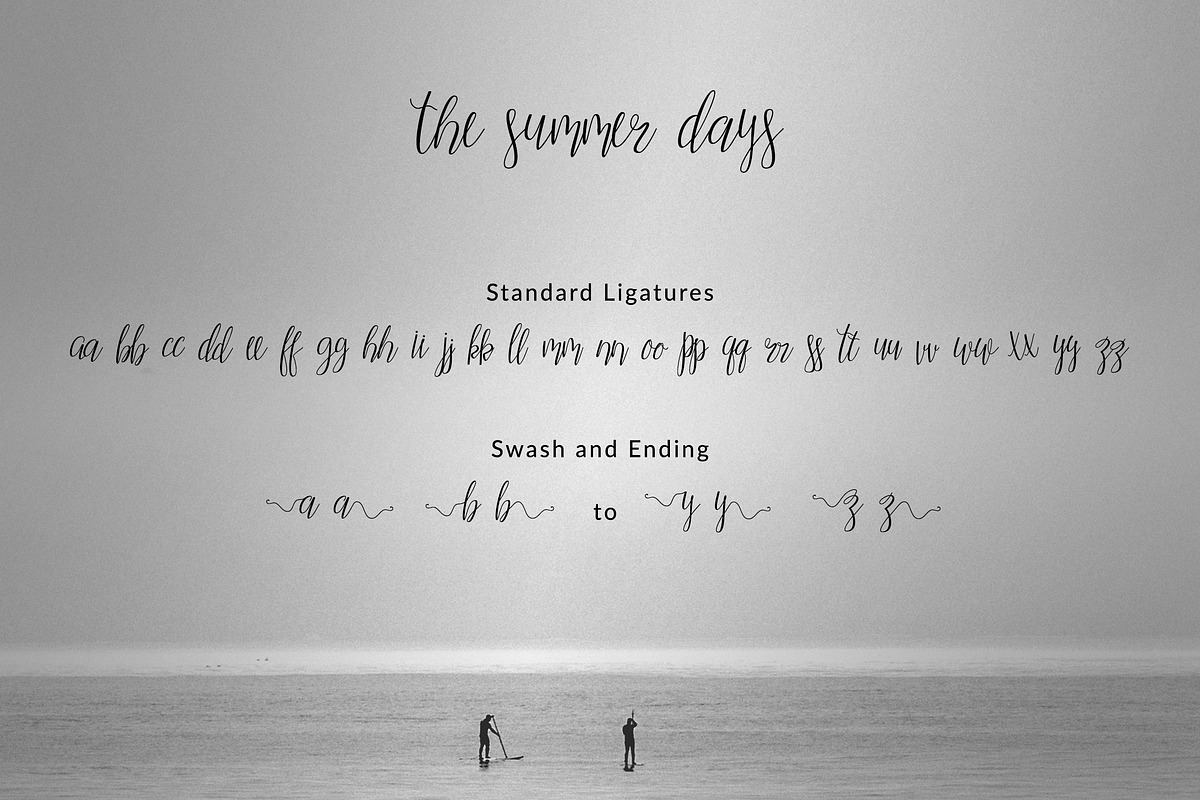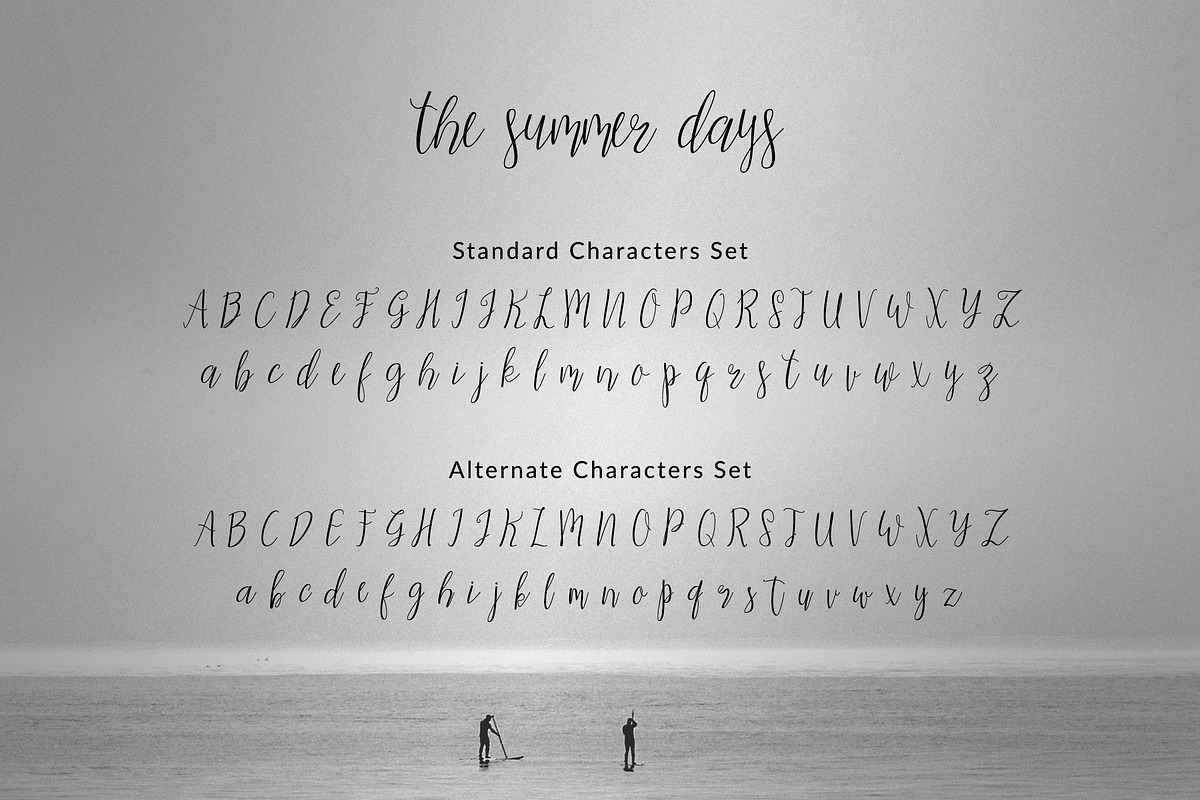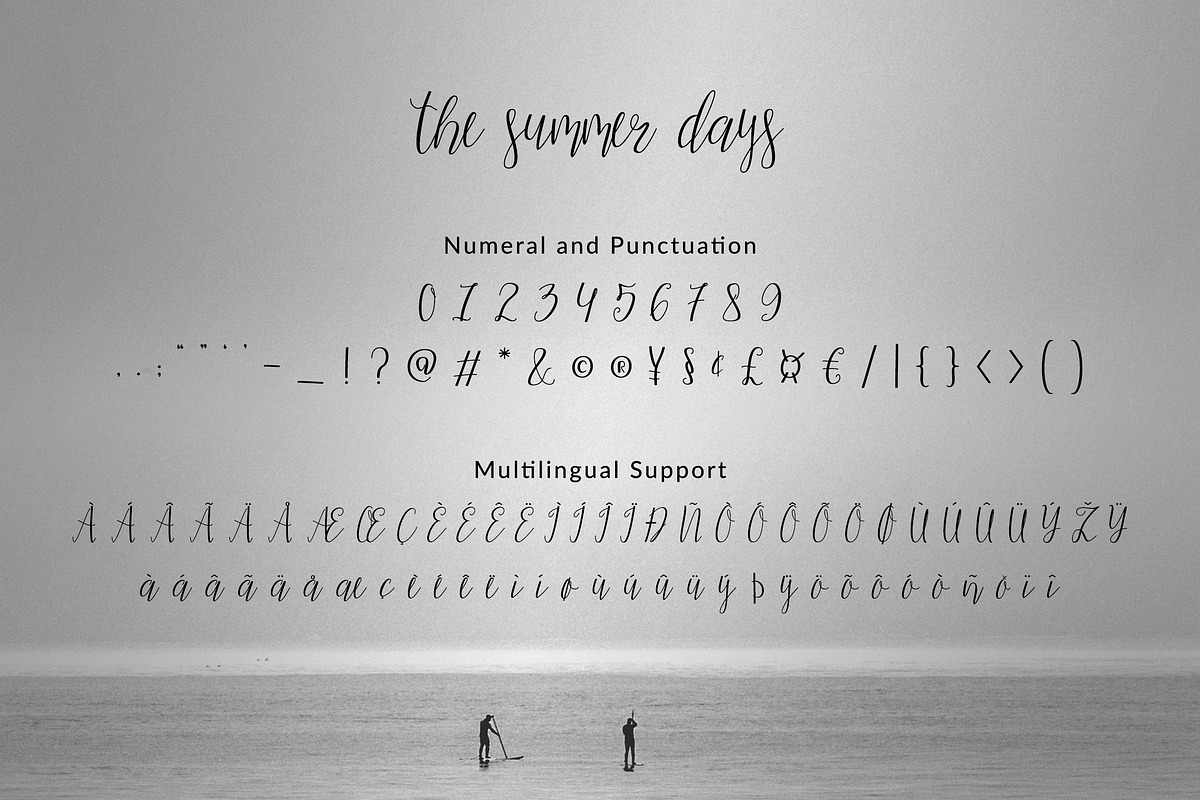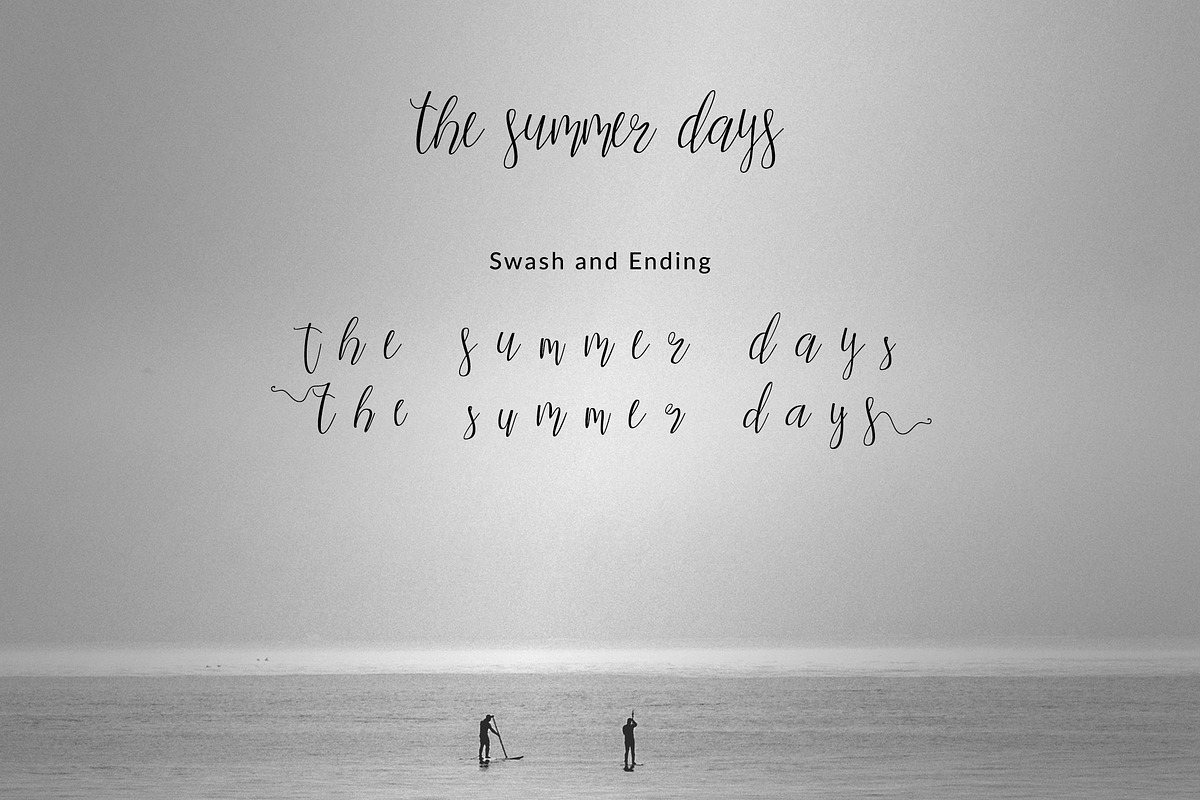
the summer days
"The Summer Days Script Font" it is perfect for blogging, social media, branding, magazines, portfolio, wedding invites and cards.
"The Summer Days Script Font" includes full set of gorgeous uppercase and lowercase letters, numerals of punctuation and ligatures style set.
- Alternates and Ligatures